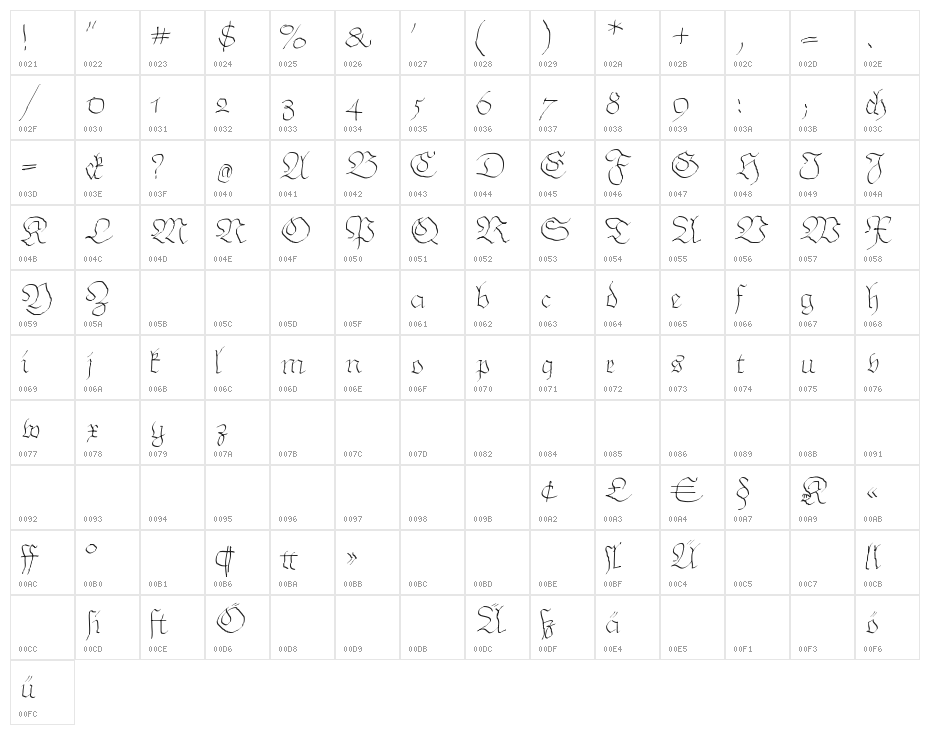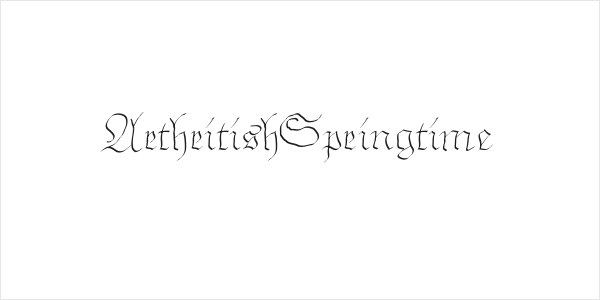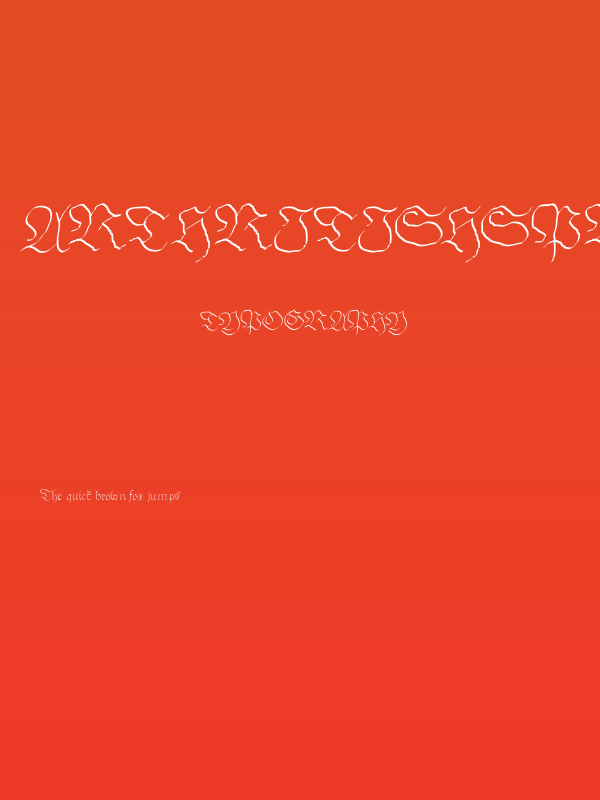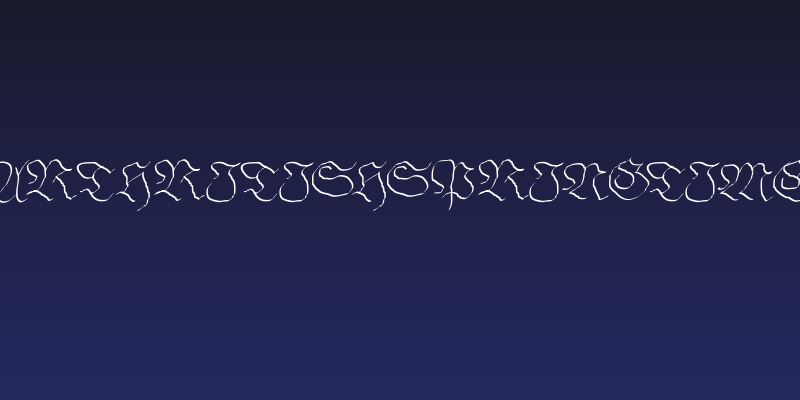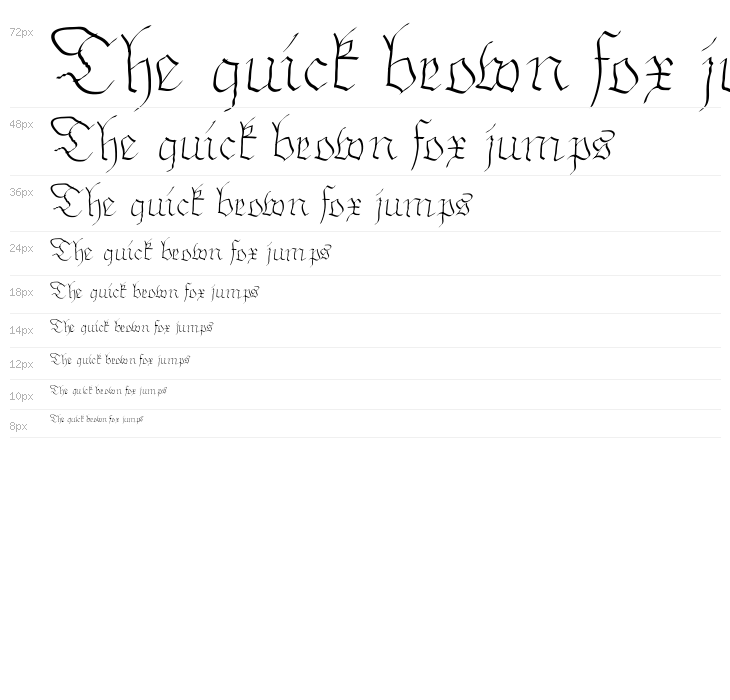
ArthritishSpringtime Font
ArthritishSpringtime Description
This font exhibits a distinct calligraphic style with elegant, flowing strokes that mimic the fluidity of handwritten script. The uppercase letters are ornate, featuring intricate loops and flourishes that add a touch of sophistication. The lowercase letters maintain a consistent style, with a slight slant that enhances the handwritten feel. Numbers and special characters are crafted with the same attention to detail, ensuring a cohesive appearance across all elements. The overall design is reminiscent of traditional calligraphy, making it suitable for projects that require a classic and artistic touch.